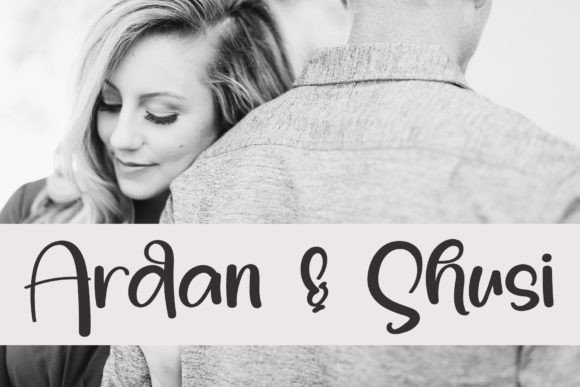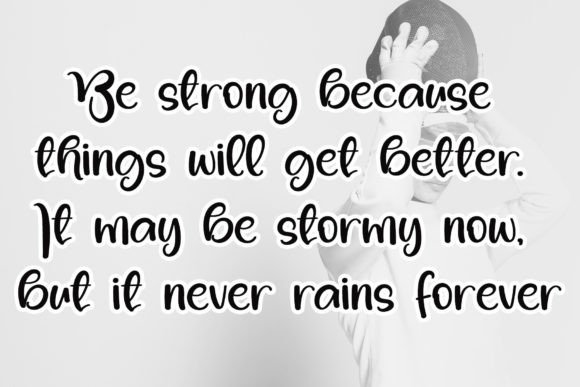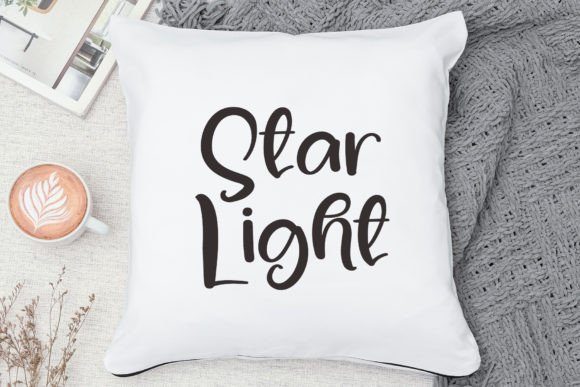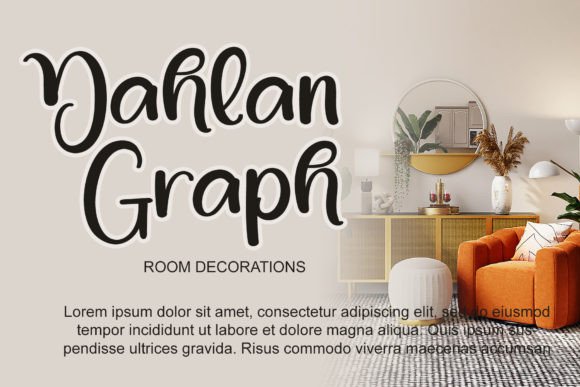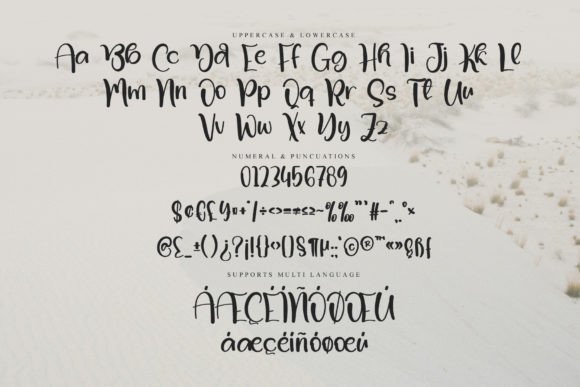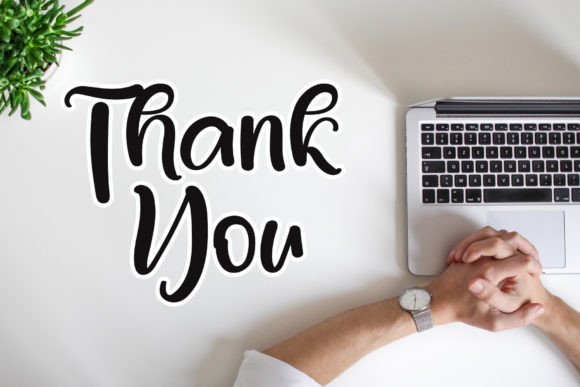
The Perfect Font for the Holiday Season
For designers, finding the right font to capture the spirit of the season can be a challenge. That’s where the Bookish Font comes in – a festive and happy typeface that adds a touch of charm to your designs. With its decorative elements and unique flair, this font is perfect for greeting cards, gift labels, and holiday-themed projects.
Whether you’re a seasoned pro or just starting out, the Bookish Font is a valuable addition to any designer’s toolkit. Its cheerful and nostalgic atmosphere is sure to bring a smile to your face and make your designs stand out from the crowd.
Bookish Font Key Features
- Font Family: Bookish Font comes in two font styles, Bookish Regular and Bookish Italic, offering a classic and elegant look for various design applications.
- Font Size: Bookish Font is designed to work well in font sizes ranging from 8 to 24 points, making it suitable for body text and headings.
- Resolution: The font is optimized for print and digital use at resolutions up to 300 DPI, ensuring clear readability in various mediums.
- Unique Characteristics: The Bookish Font features a unique blend of classic and modern elements, with subtle flair and sophistication, making it perfect for book covers, publishing, and literary designs.
- Font Weight: The font has a medium weight, which provides a balanced look and feel, suitable for both print and digital applications.
Bookish Font Review
I recently had the chance to work with the Bookish Font, and I must say it’s a unique addition to any design project. ✨ One of the things that stands out about this font is its elegant and sophisticated feel. It’s perfect for creating a cozy and inviting atmosphere, especially for book-related projects or literature-inspired designs.
- ✨ Elegant and refined aesthetic
- ✨ Perfect for creating a vintage or classic feel
- ✨ Works well for book titles, quotes, and other literary-related text
- ⚠️ Limited versatility – it’s best suited for specific design projects, rather than general use
- ⚠️ May not be suitable for modern or minimalist designs
- ⚠️ Some letters and characters may not be as well-formed as others
Overall, I think the Bookish Font is a great choice for designers looking to add a touch of elegance and sophistication to their projects. It’s not a font for every occasion, but when used in the right context, it can really shine. With a little creativity and experimentation, you can unlock the full potential of this beautiful font.
Tips for Getting the Most Out of Bookish Font
Bookish Font is perfect for creating a vintage, literary feel in your designs. To get the most out of it, use it in combination with distressed textures and warm color palettes. You can also use it to create a sense of nostalgia and tradition in your branding and marketing materials.
Bookish Font is commonly used in:
- Book covers and publishing materials
- Vintage-inspired branding and marketing materials
- Education and academic materials
Alternatives to Bookish Font for Designers
Lato is a modern sans-serif font that is highly legible and versatile. It’s suitable for a wide range of applications, from body text to headings, and can be used for both print and digital media.
Compared to Bookish Font, Lato is more modern and sleek, making it a great choice for contemporary designs. While Bookish Font has a more vintage feel, Lato is perfect for projects that require a clean and minimalist aesthetic.
Merriweather is a classic serif font that is highly legible and elegant. It’s suitable for body text and is often used in academic and literary contexts.
The recommended font size for optimal readability with Bookish Font is between 12-14 points for body text and 18-24 points for headings. However, the ideal font size may vary depending on the design application, screen resolution, and personal preference. Experiment with different font sizes to find the best fit for your design.